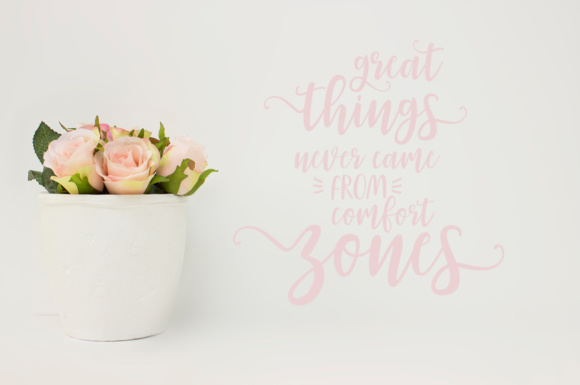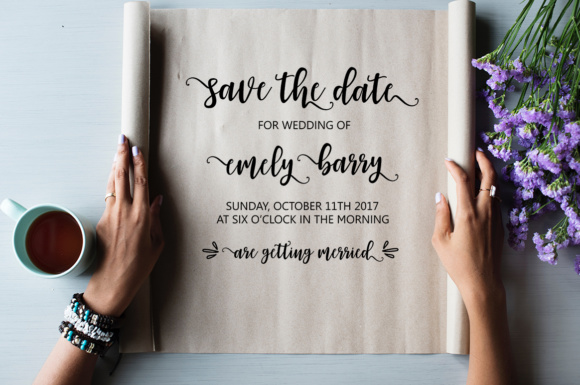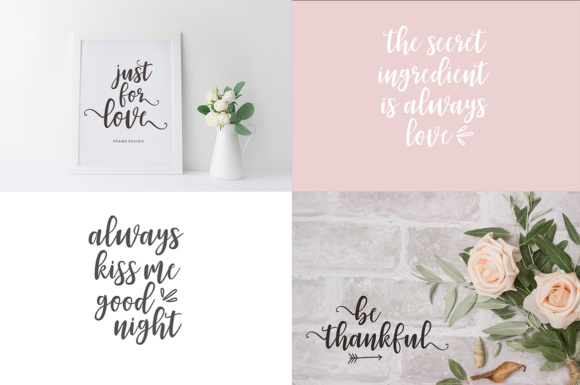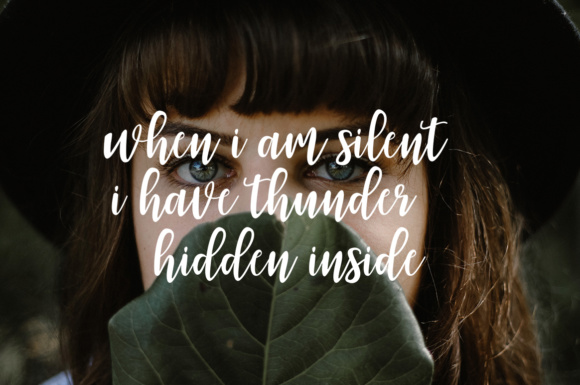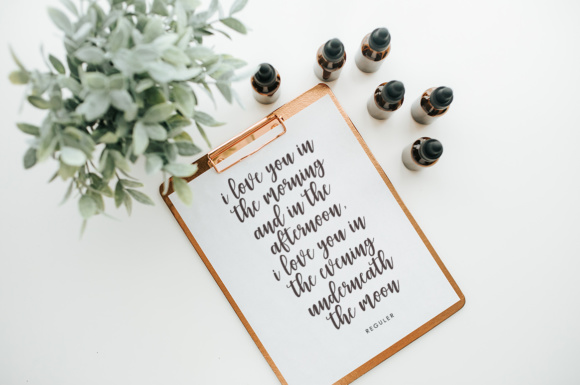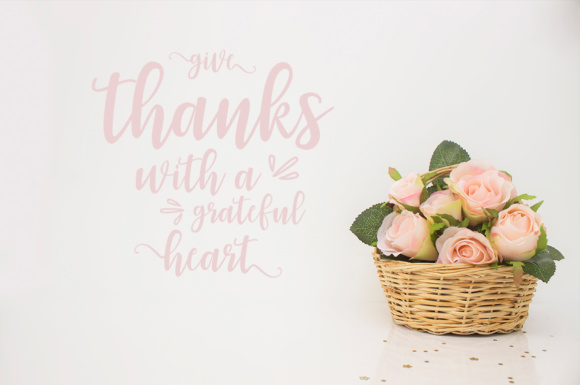
Zahira Font
About Zahira Font
Zahira is a beautiful hand-brushed font that will give your projects a completely feminine and refined feel! This font comes with stylistic alternates and works in harmony with a ton of different handwritten font styles, so you can create unique and gorgeous type-based projects each and every time.